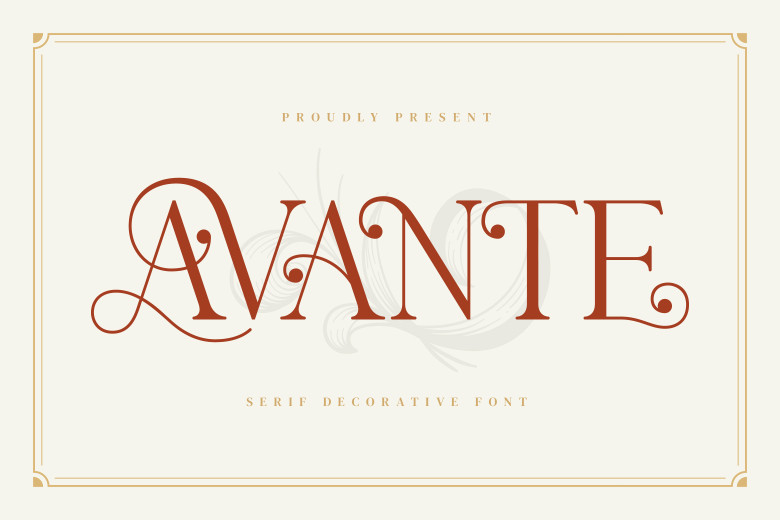
Avante is a serif font inspired by its minimalist logo of the same name. Ideal for creating brochures, templates videos advertisements branding logos and much more besides.
Avante Serif Font